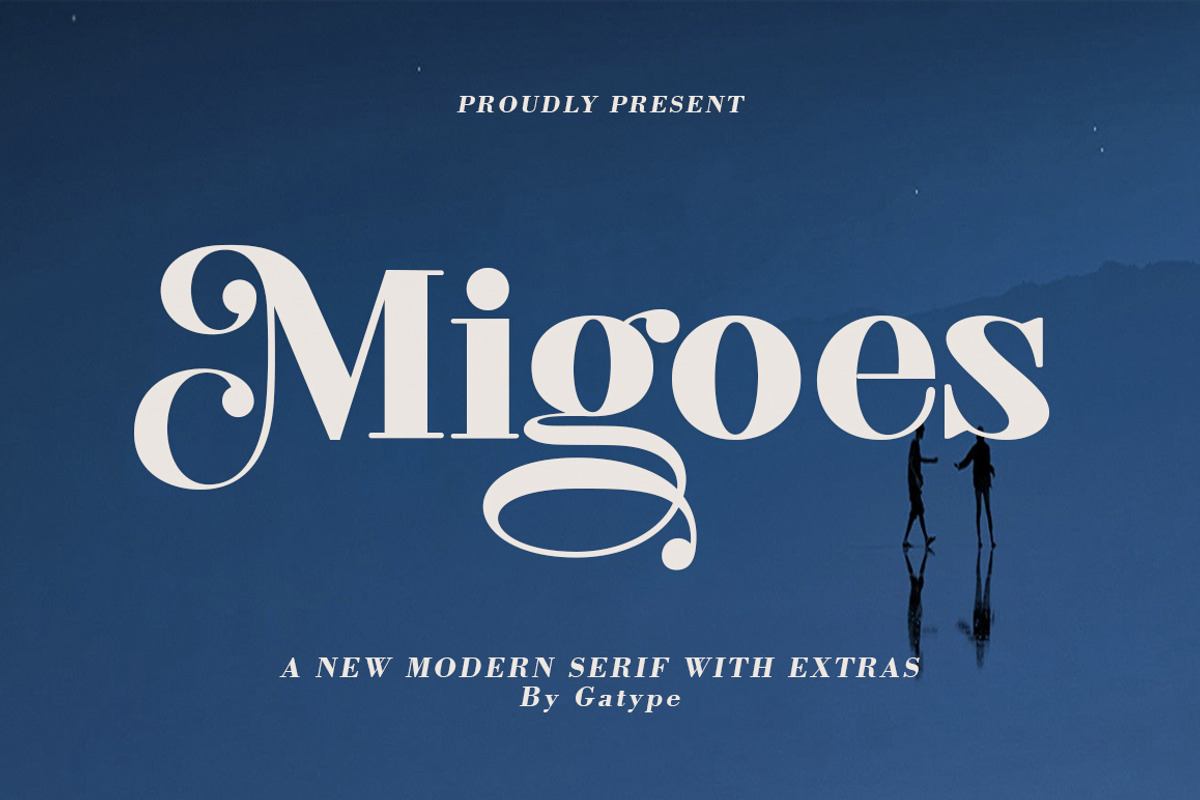
Migoes Font Free Download is a modern and stylish typeface that blends clean lines with unique geometric features. With its bold letterforms and contemporary design, Migoes is perfect for branding, logo design, posters, headlines, and any project that requires a fresh and impactful look.
This font is versatile, offering both professional appeal and creative flair, making it ideal for digital designs, social media graphics, and modern editorial layouts. Whether you're creating a brand identity or designing promotional materials, Migoes adds a sleek, modern touch to your typography.